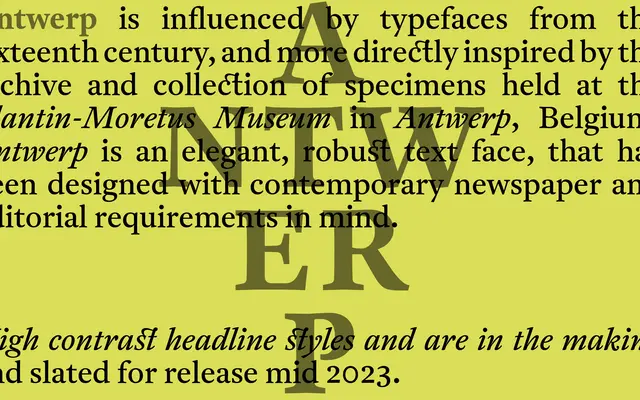
Antwerp
A text serif drawing directly on the sixteenth-century type specimens held at the Plantin-Moretus Museum in Antwerp, Belgium.
Five weights from Light to Bold, each with a matching italic, make this a workable family for newspapers, books and magazines. The Plantin-Moretus archive provides the historical grounding, giving the design an old-style warmth without excessive archaism. Sits comfortably in long-form editorial settings where legibility at text sizes matters more than display presence.
Drawn from sixteenth-century sources and the Plantin-Moretus Museum archive, Antwerp sits firmly in the old-style (Garalde) tradition, with the humanist stroke contrast and bracketed serifs characteristic of that period.